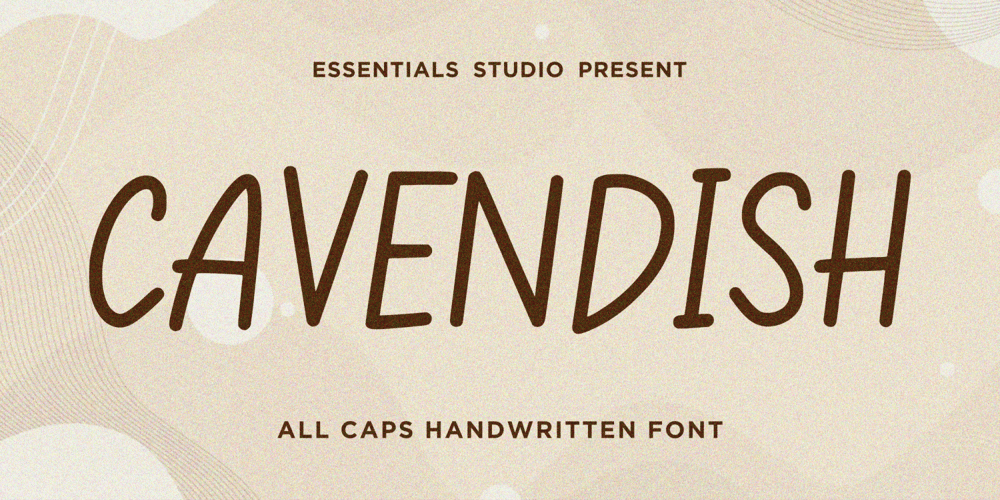
Cavendish Font Family was designed by Bias Surya Buana and published by Essentials Studio. Cavendish contains 1 styles and family package options. Introducing by Essentials StudioProudly Present, CAVENDISH Is a A Cute Handwritten FontCAVENDISH is perfect for product packaging, branding project, megazine, social media, wedding, or just used to express words above the background.